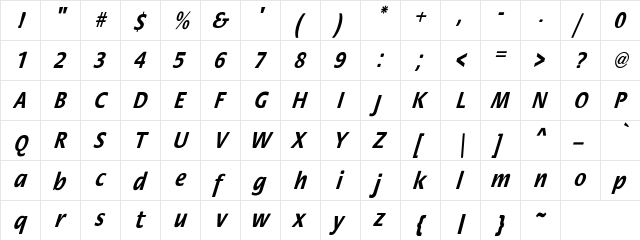
FloraCndObl-Bol Regular Font Preview
FloraCndObl-Bol Regular
Design Context for FloraCndObl-Bol Typeface
FloraCndObl-Bol takes a measured approach to typography — its balanced proportions and neutral character make it a reliable workhorse for both digital and print work.
Pro Tip: Use FloraCndObl-Bol in both headline and body roles to test its range before committing to a single application.